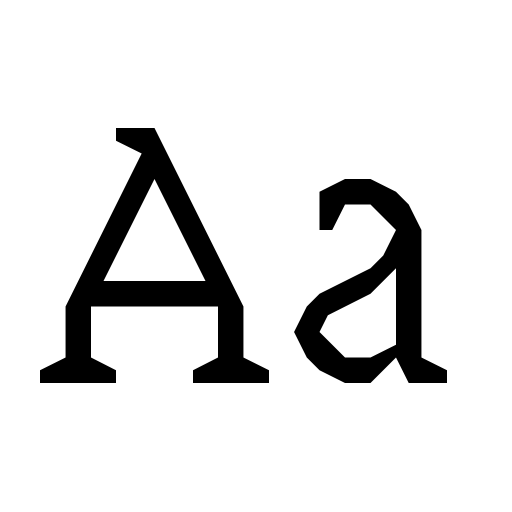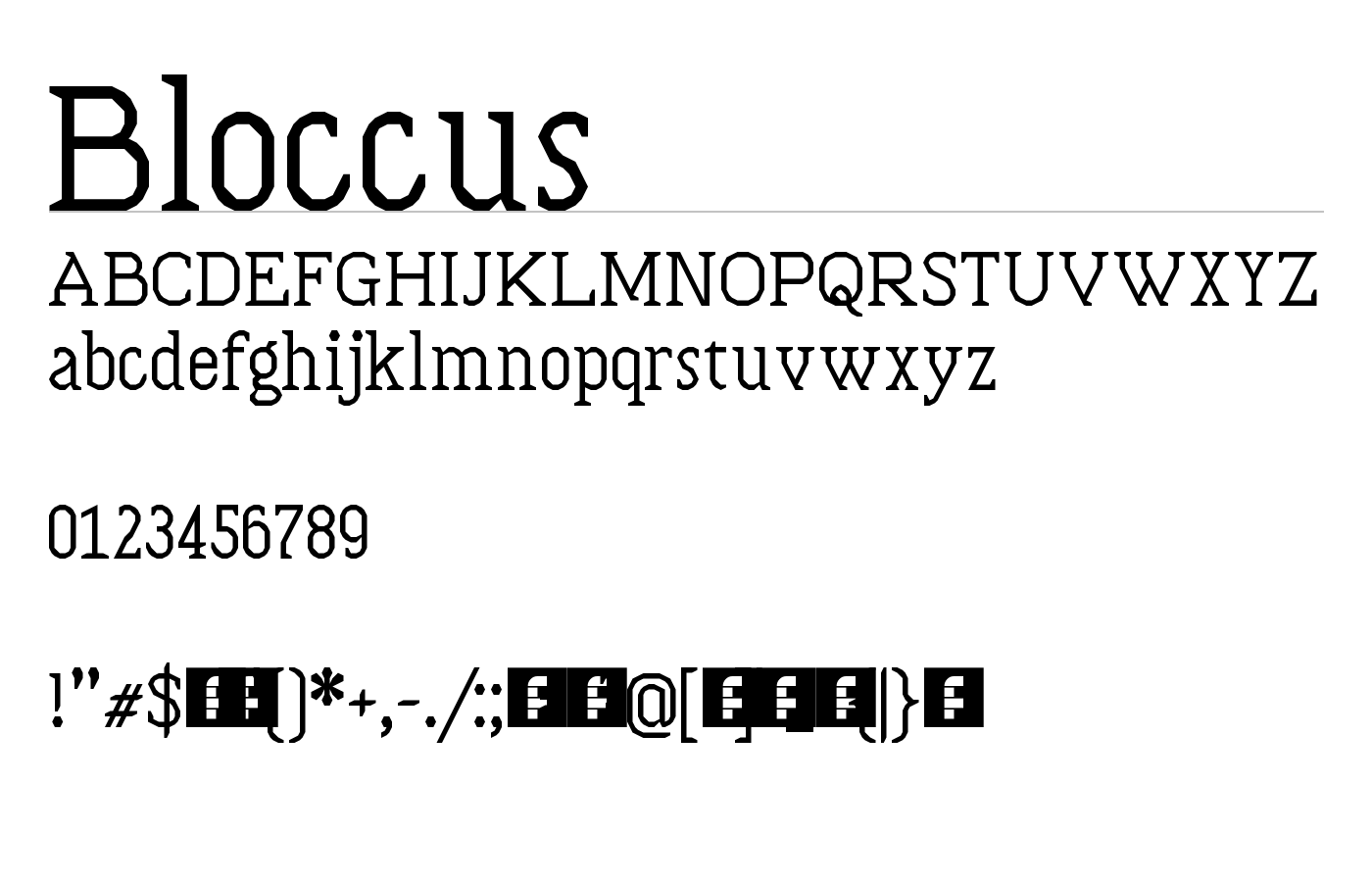
Bloccus is a distinctive slab serif font characterized by its block-like, angular letter shapes and sturdy, unbracketed serifs that give it a strong, industrial feel. With a medium weight and a somewhat condensed width, the font offers clear legibility and a modern, technical vibe perfect for headlines, logos, and branding that demand a bold yet refined appearance. Its unique geometric details and consistent stroke weight make it ideal for projects seeking a blend of vintage charm and contemporary edge.
Bloccus Font
About Bloccus Font